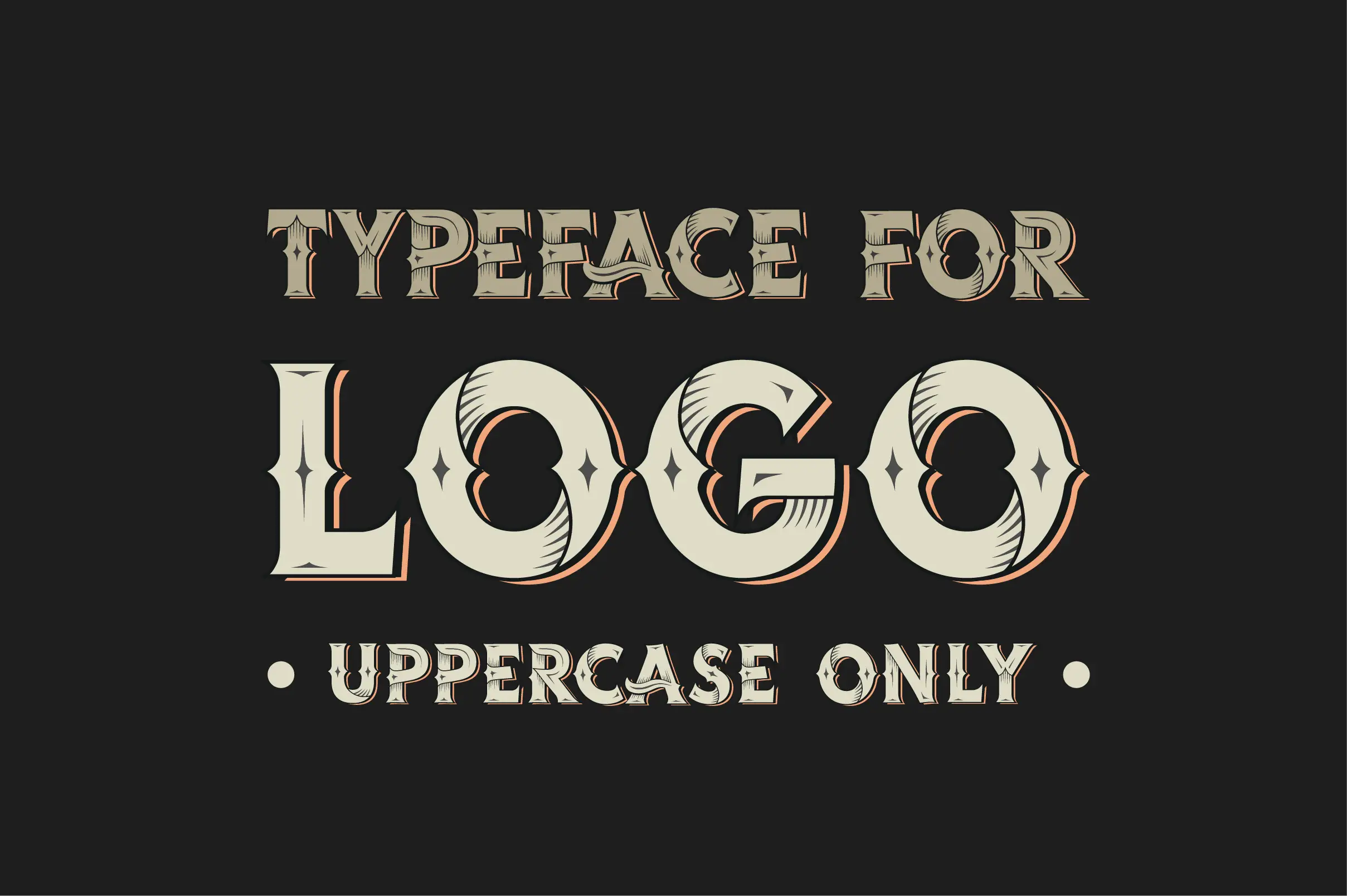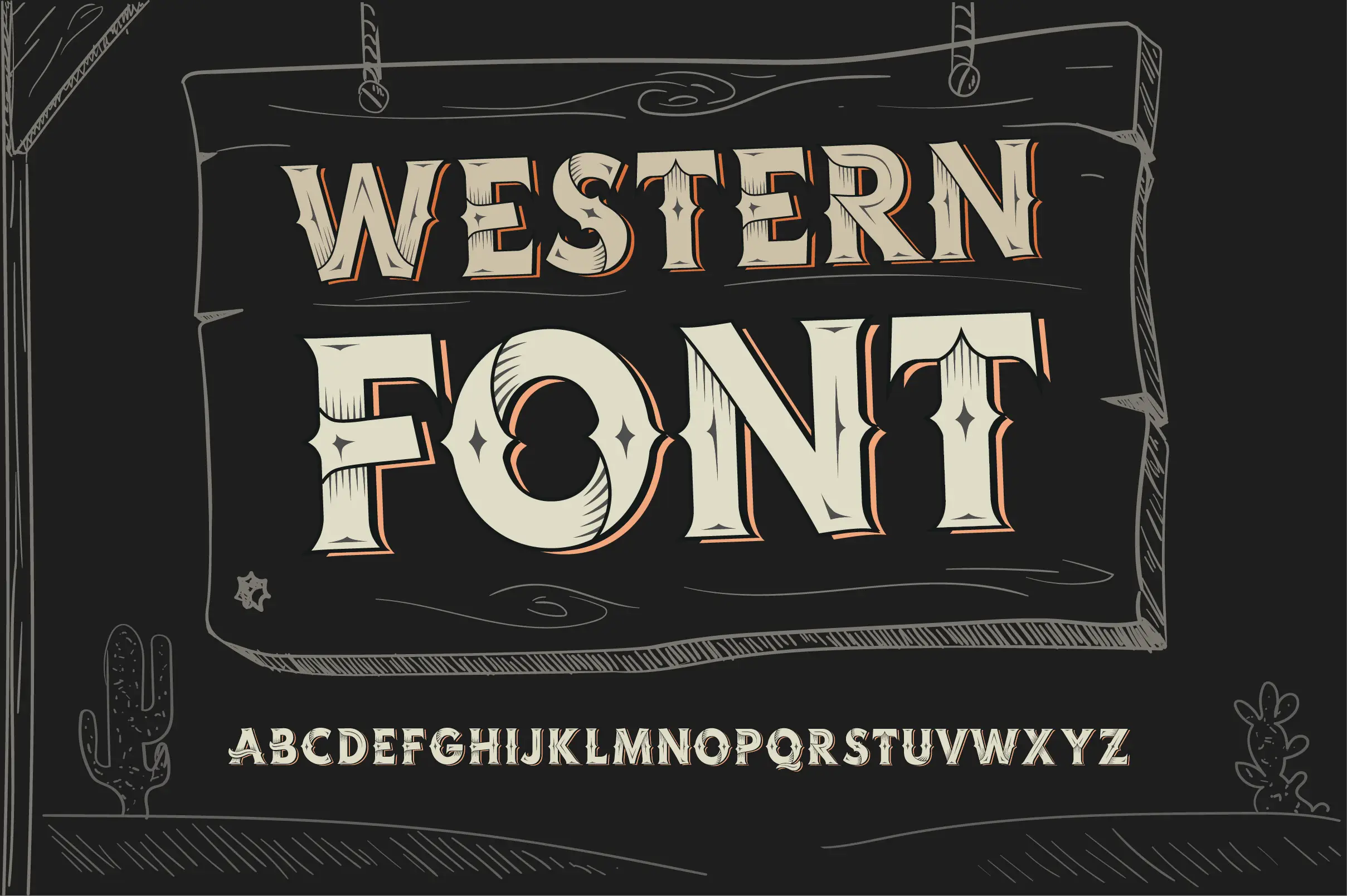
Western Otf Vintage Label Font
The Western Otf Vintage Label Font is a beautifully crafted typeface that brings a touch of nostalgia to your design projects. With its unique vintage style, this font is perfect for creating eye-catching labels, logos, and branding materials.
• Stylish vintage design
• Style: Vintage Label
Ideal for branding, packaging, signage, and any project that requires a vintage aesthetic. Pair it with modern elements for a striking contrast.